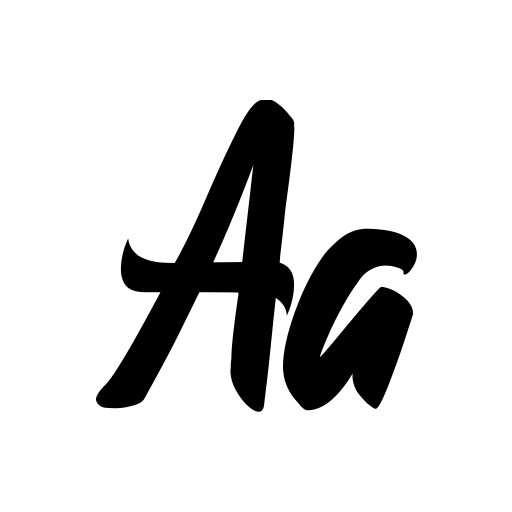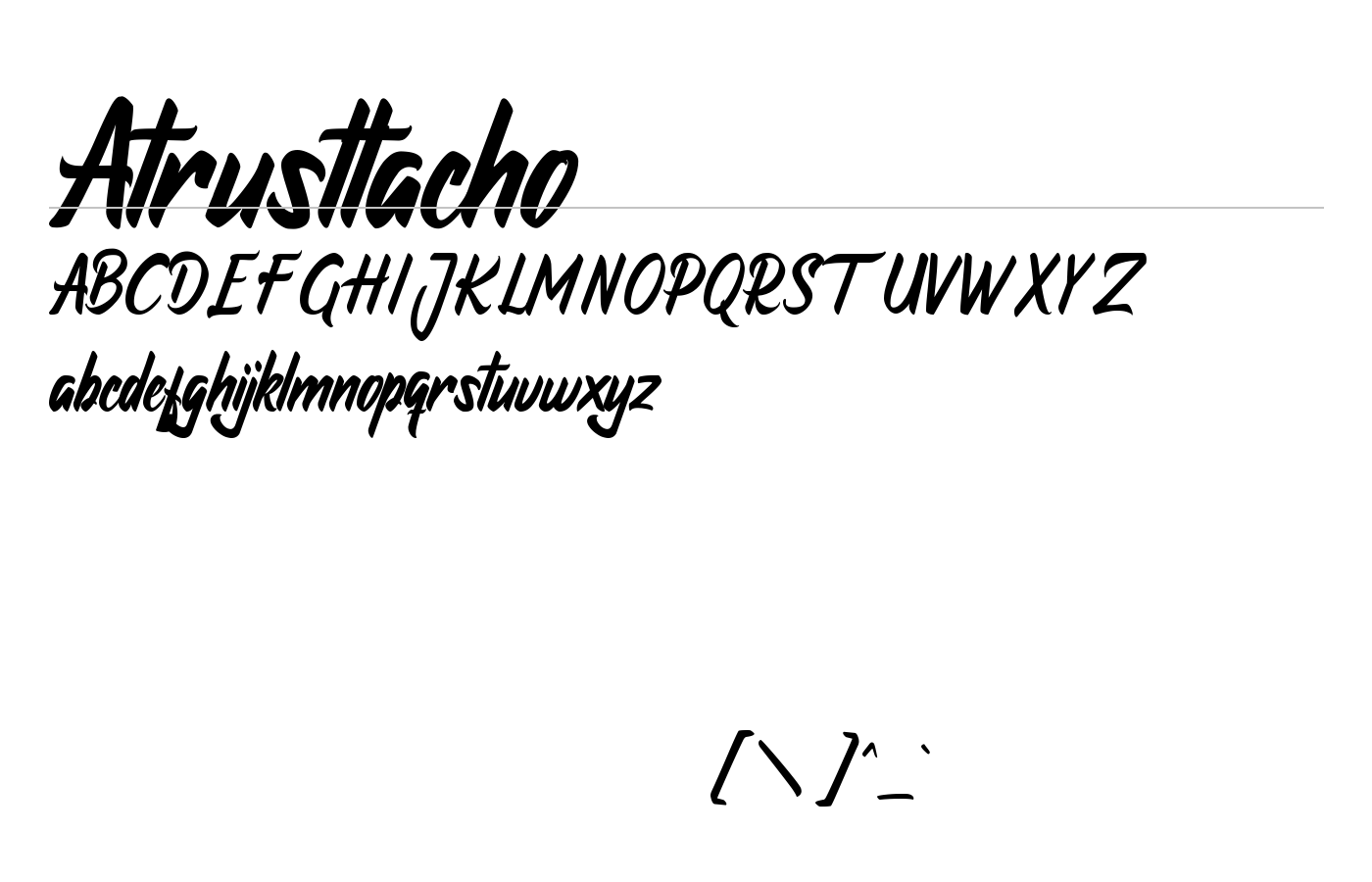
Atrusttacho is a dynamic script font with a bold, energetic feel characterized by its smooth, fluid strokes and slightly condensed letterforms. Its handwritten style with moderate contrast and casual flair makes it perfect for branding, headlines, and creative projects that seek a lively, personal touch. This font works well for logos, posters, and packaging where a contemporary, approachable personality is desired.
Atrusttacho Font
About Atrusttacho Font
| Font family | Atrusttacho Font |
| Designer | Wahyu Saputra |
| Trademark | Gulio Studio |